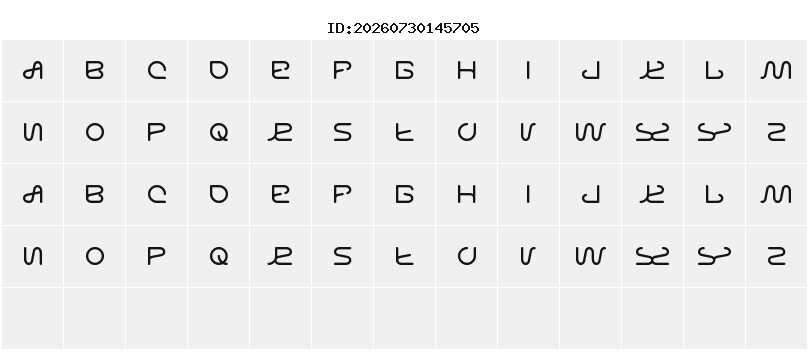
• Font Name: letting the cable sleep
letting the cable sleep.ttf is a modern, elegant sans-serif font designed for ultimate readability and visual harmony. Perfect for branding, headlines, web design, and print materials.